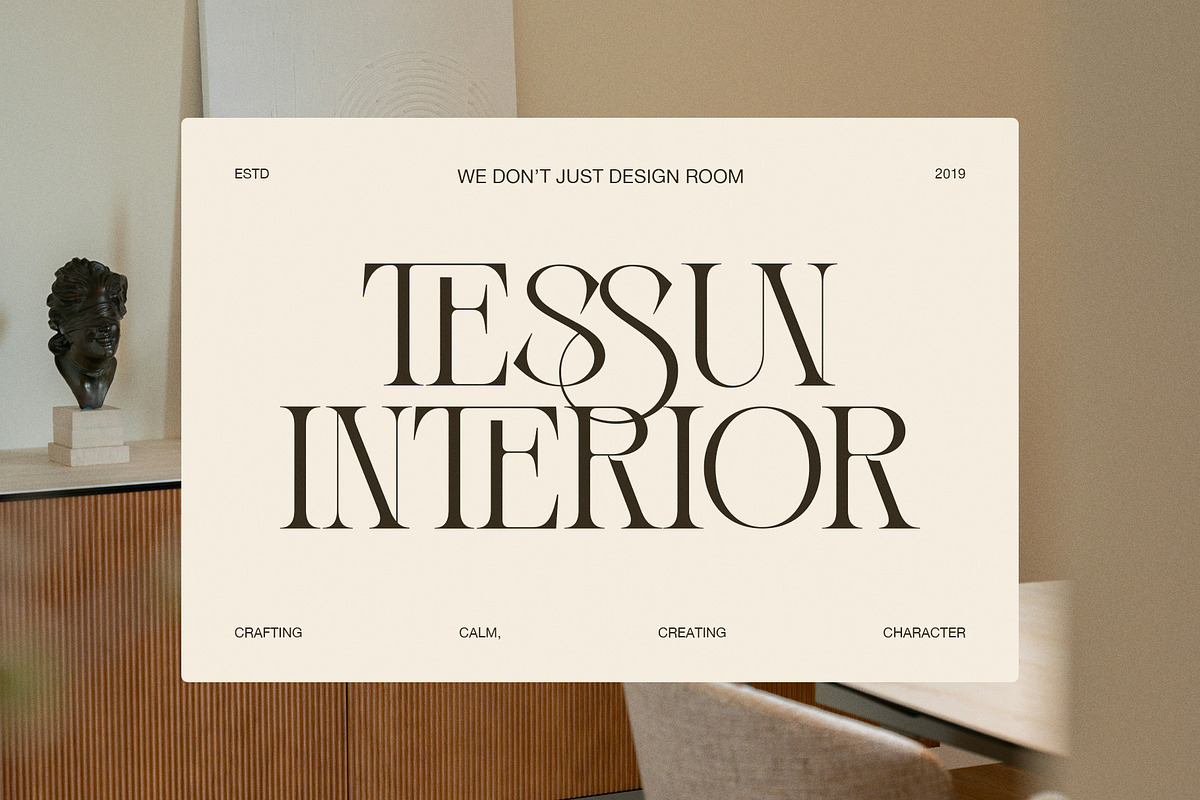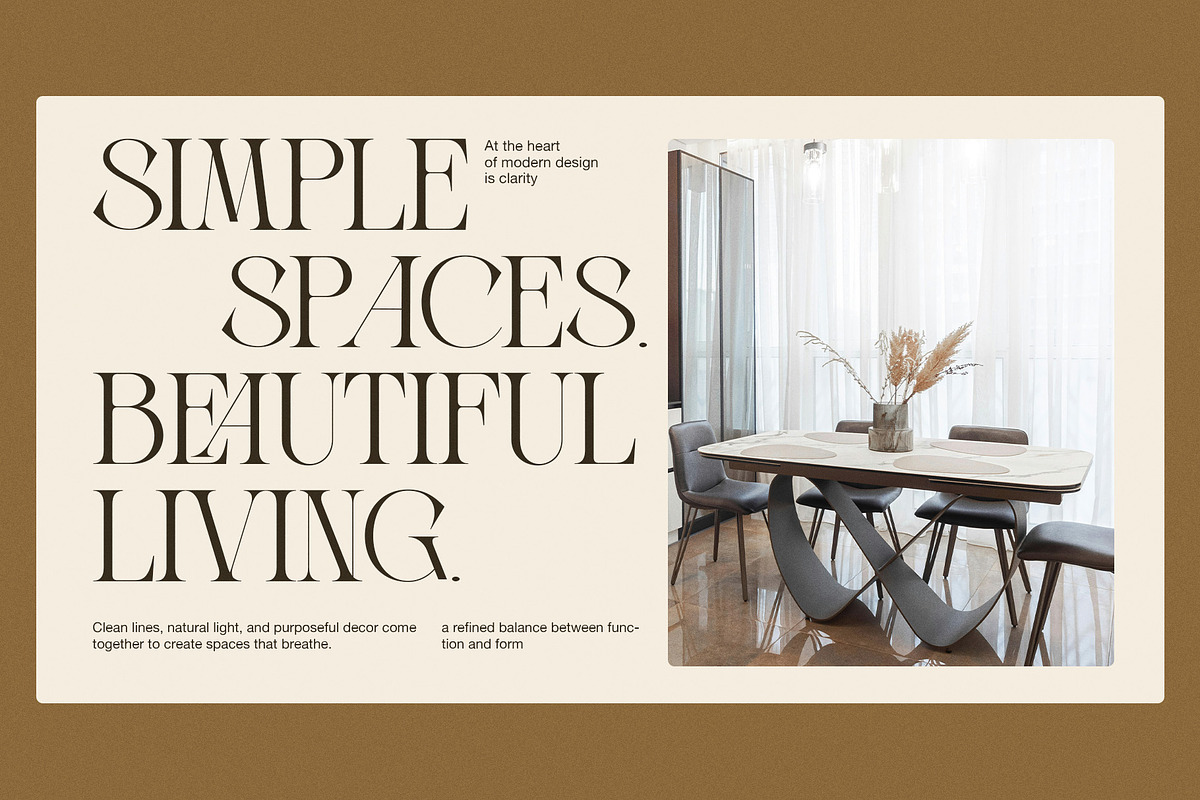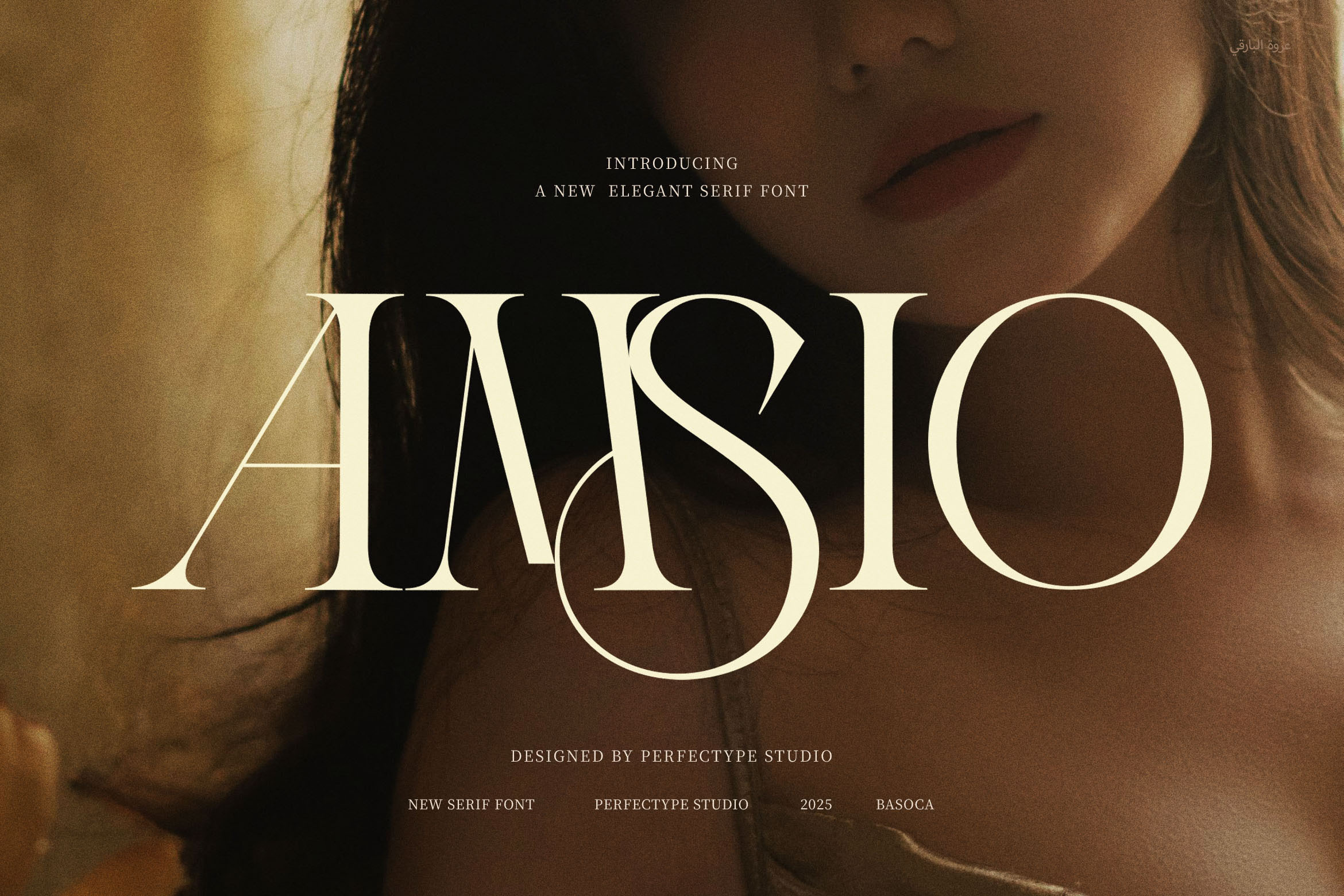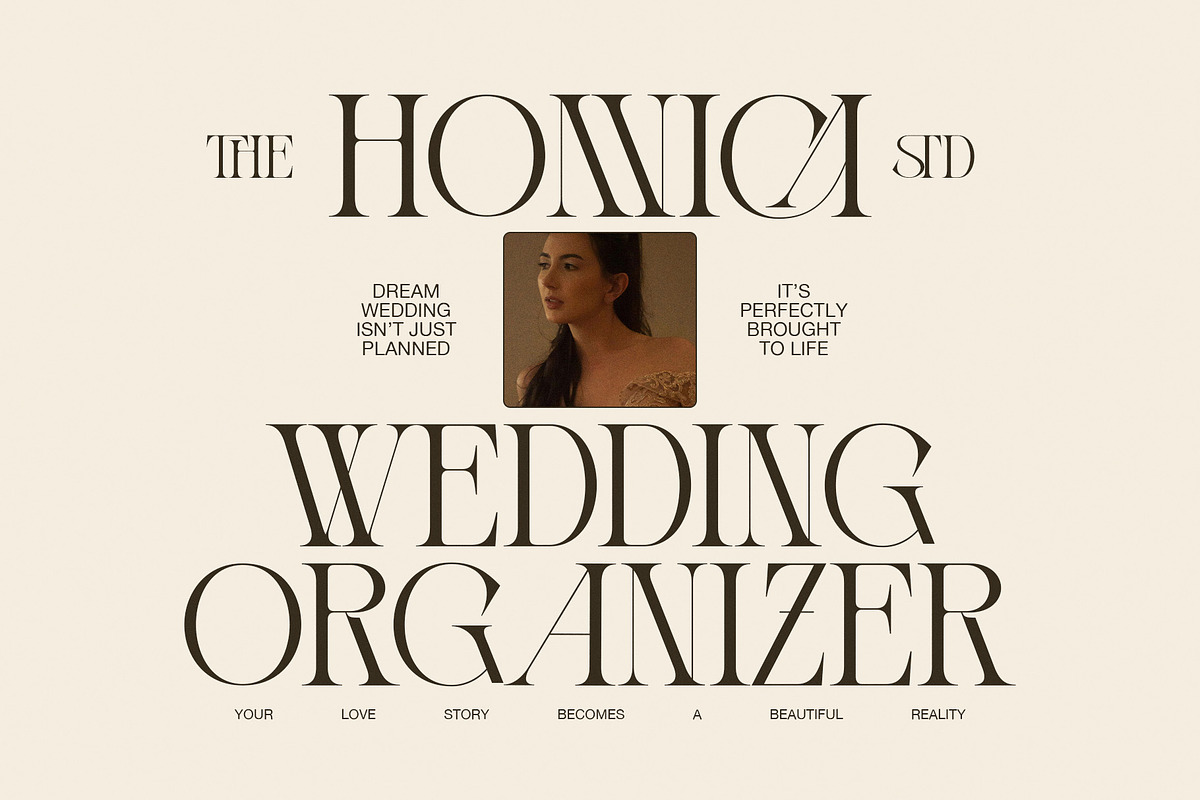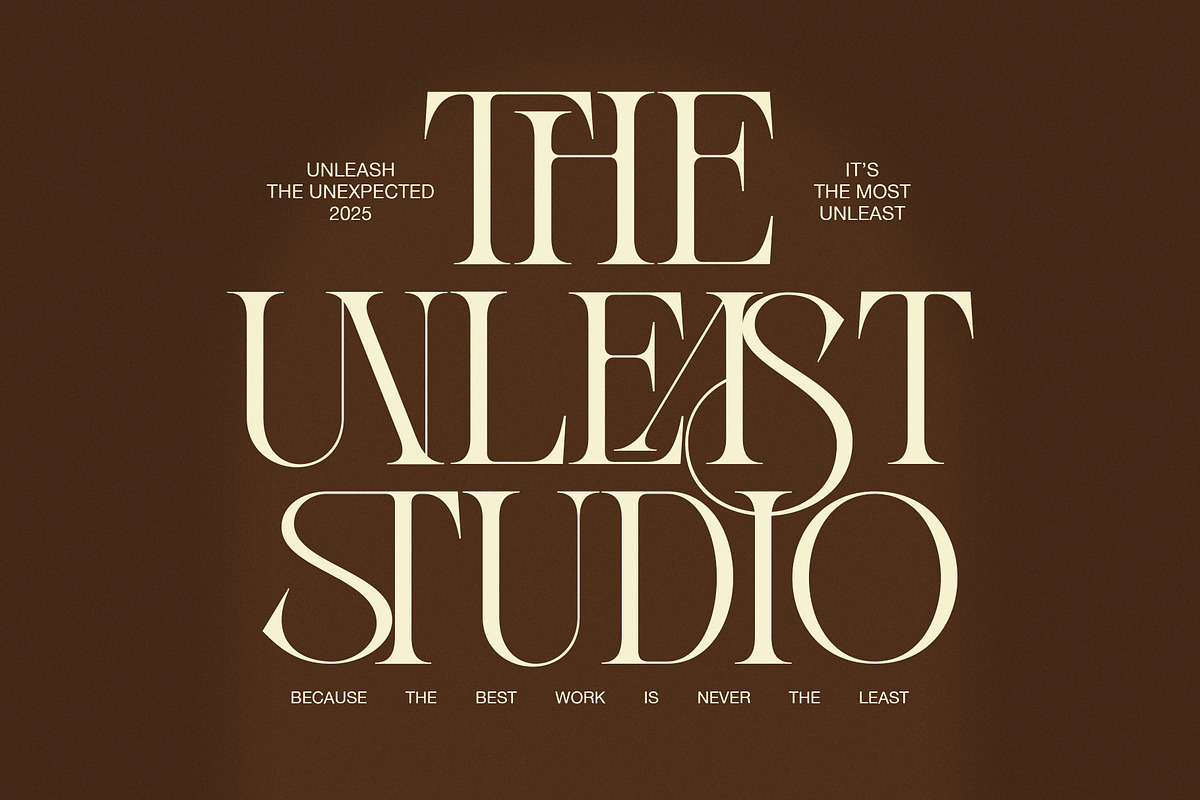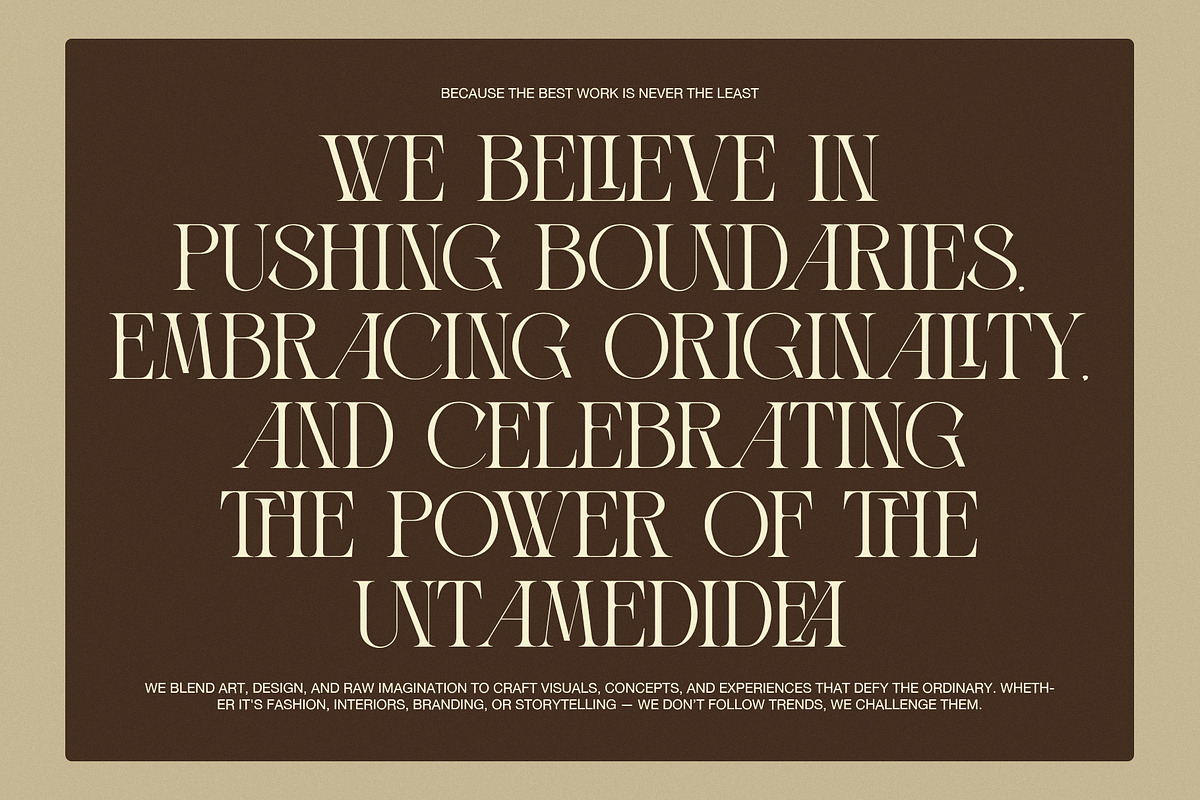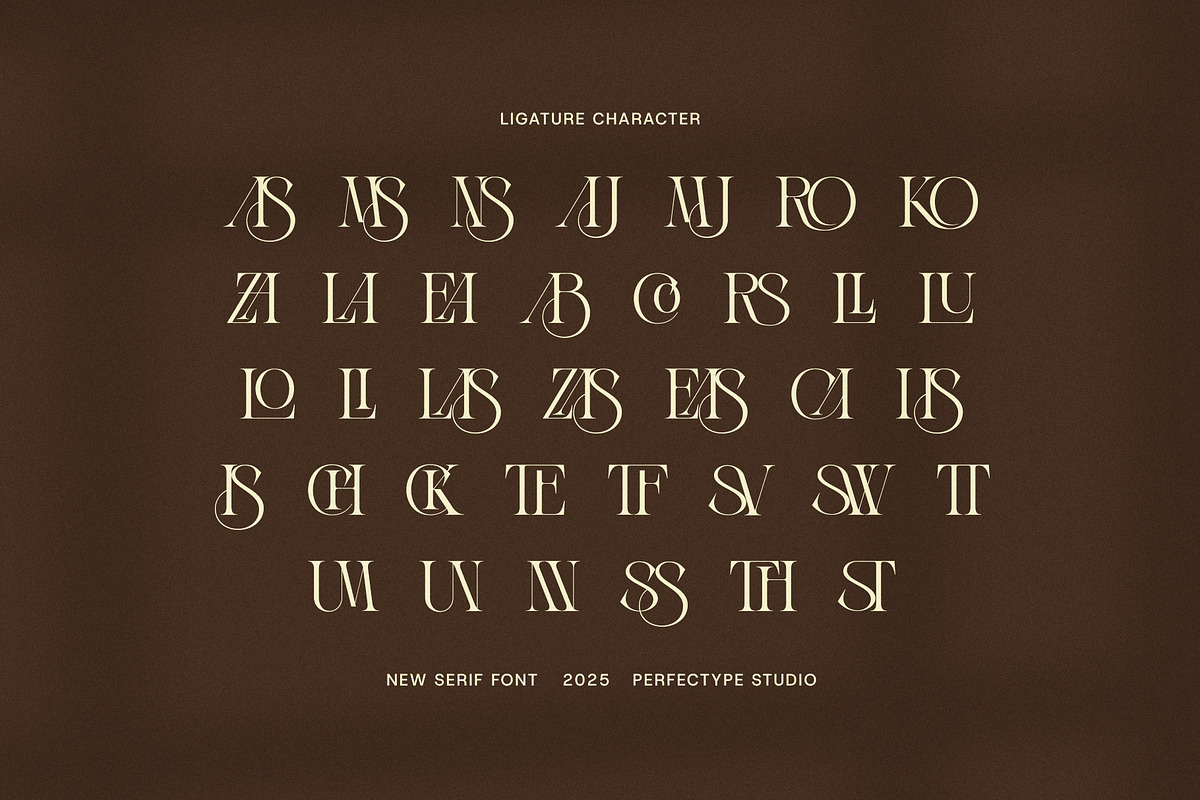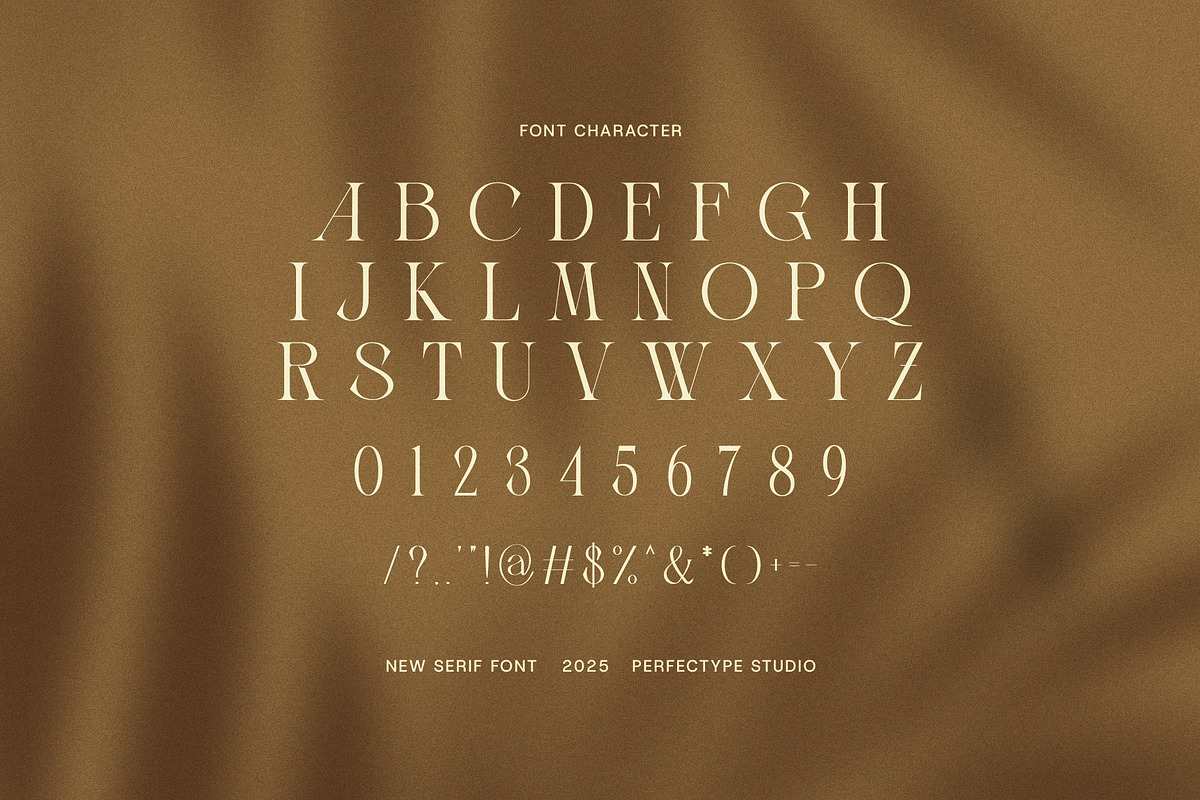
Amsio Elegant Serif Font
Amsio Elegant Serif Font – Modern Simplicity Meets Timeless Luxury
Amsio Elegant Serif Font is a refined serif typeface that blends modern aesthetics with classic charm. Designed for versatility and sophistication, Amsio brings elegance and structure to any creative project. With perfectly balanced proportions and smooth curves, this font is ideal for designers who want to create premium visual identities that leave a lasting impression.
Created for modern branding, Amsio supports a variety of professional applications. Whether you’re working on upscale product packaging, fashion branding, editorial layouts, or stylish website headers, this font delivers a strong yet graceful presence. Its carefully crafted ligatures and stylish letterforms ensure your design stands out—without overwhelming the message.
Use Amsio to elevate your:
Luxury brand logos
Website titles and hero banners
Magazine headlines and layout designs
Product packaging and advertisements
Boutique branding and signage
Menu designs and food labels
Elegant invitations and stationery
With its minimalist elegance and functional ligatures, Amsio is more than just a font—it’s a reliable design tool for modern creatives.